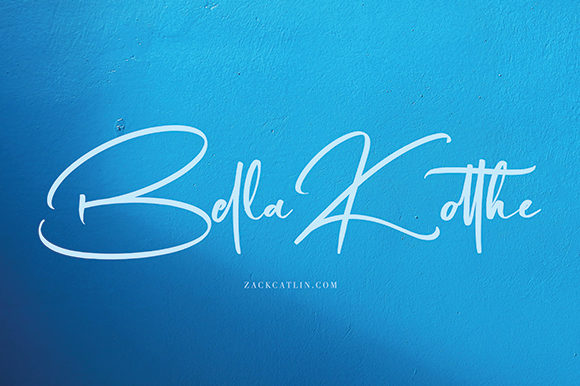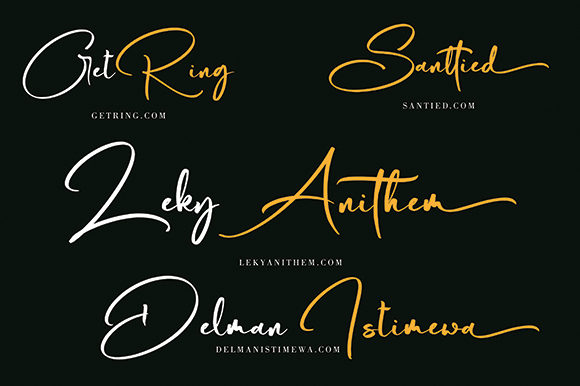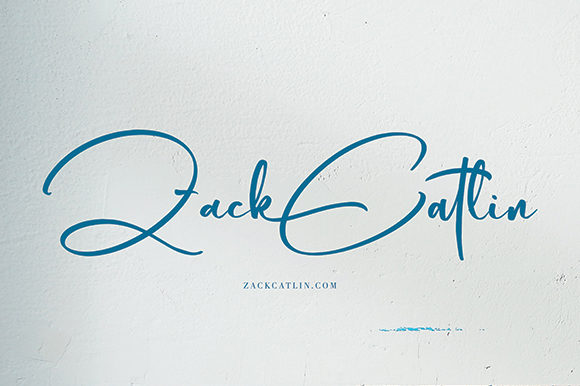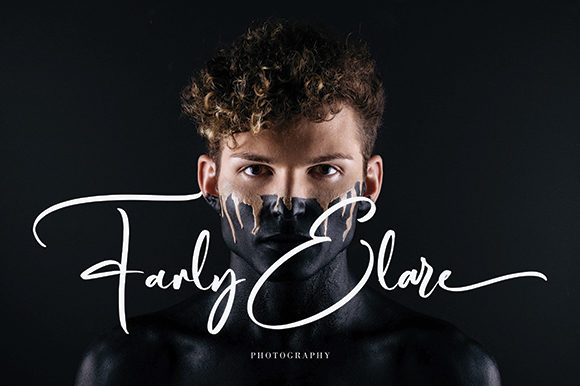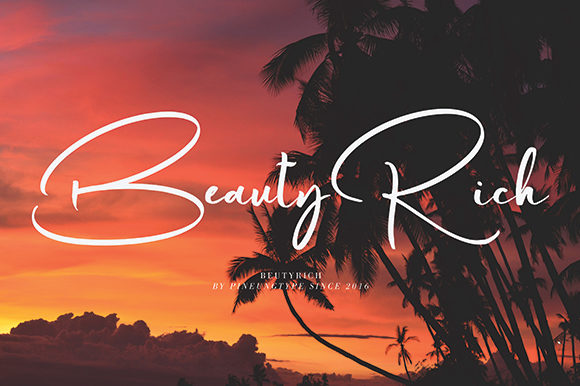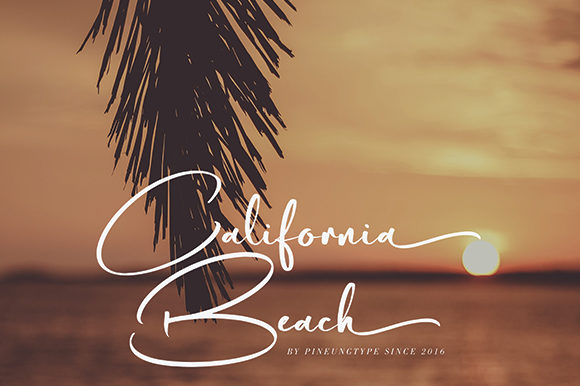
Introducing Berttang Sella Font: Elevate Your Designs with Elegance
In the world of design, fonts play a pivotal role in conveying the essence and aesthetic of a project. Whether you’re crafting wedding invitations, designing thank you cards, or creating logos, the right font can make all the difference. This is where Berttang Sella Font comes into play—a beautiful, smooth, and elegant handwritten font that is set to revolutionize your designs with its personalized touch.
The Beauty of Berttang Sella Font
Berttang Sella Font stands out for its exquisite, handcrafted appearance that lends a touch of sophistication and grace to any design. Its smooth lines and elegant curves make it a versatile choice for a wide array of projects, including:
- Wedding invitations: Add a romantic and luxurious feel to your wedding invites.
- Thank you cards: Express gratitude with a personalized and heartfelt touch.
- Weddings: Use it for signage, programs, or any printed materials for a cohesive look.
- Greeting cards: Make your cards stand out with a unique and elegant font.
- Logos: Create memorable and stylish logos for businesses or personal brands.
One of the significant advantages of Berttang Sella Font is that it is PUA (Private Use Area) encoded. This feature allows designers to access all the glyphs and swashes easily, providing the flexibility to customize and enhance their designs without any hassle. PUA encoding ensures that you can:
- Access a wide range of characters and swashes.
- Easily incorporate ligatures and stylistic alternates.
- Personalize your designs to make them truly unique.
Why Choose Berttang Sella Font?
When it comes to selecting a font for your design project, there are several reasons why Berttang Sella Font should be at the top of your list:
- Elegance and Versatility: Its smooth and elegant appearance makes it suitable for a variety of design projects.
- Personalized Touch: The handwritten nature of the font adds a personal and unique touch to your designs.
- Easy to Use: With PUA encoding, accessing and incorporating different glyphs and swashes is straightforward.
- High-Quality: Professionally crafted to ensure clarity and beauty in every design.
Tips for Using Berttang Sella Font
To make the most out of Berttang Sella Font, consider the following tips:
- Pair it with Complementary Fonts: Use Berttang Sella Font alongside simpler fonts to create contrast and hierarchy in your designs.
- Experiment with Sizes and Colors: Play around with different sizes and colors to add depth and emphasis to your text.
- Utilize Swashes and Glyphs: Take advantage of the PUA encoding to incorporate swashes and glyphs that enhance the aesthetic of your designs.
- Keep it Simple: While Berttang Sella Font is elegant, ensure that your design doesn’t become too cluttered. Balance is key.
Berttang Sella Font is a stunning addition to any designer’s toolkit. Its elegant and smooth appearance, coupled with PUA encoding for easy access to glyphs and swashes, makes it an ideal choice for a wide range of projects. Whether you’re a professional designer or a crafty DIY enthusiast, Berttang Sella Font is sure to elevate your designs and give them a personalized touch that stands out. Explore the possibilities with Berttang Sella Font and transform your designs with elegance and sophistication.